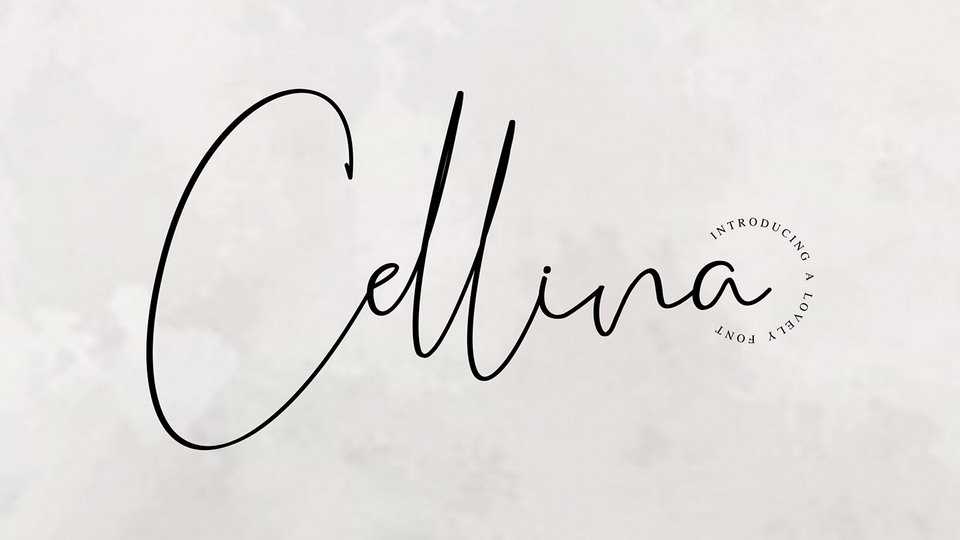
Download Cellina font, a contemporary and beautiful signature script, with more than 150 ligatures will make your design look high end! It will suits well for feminine, sexy and elegant logo.
Designer: Jumat Studio